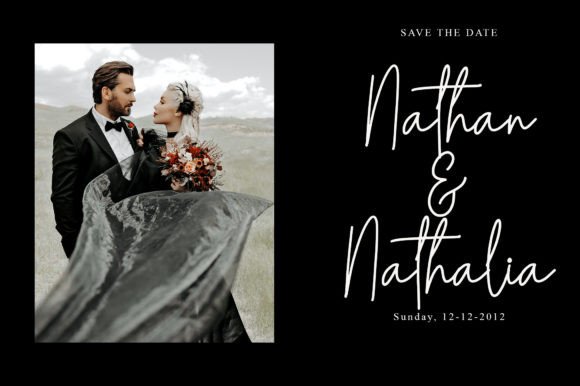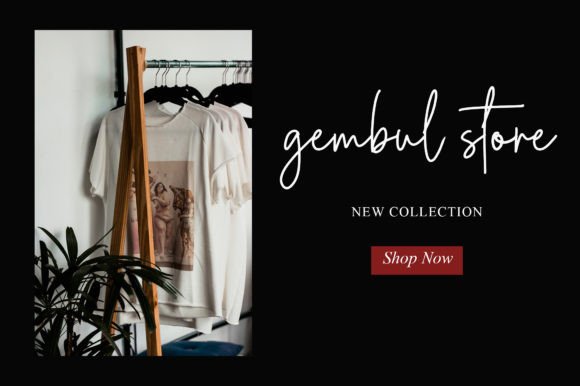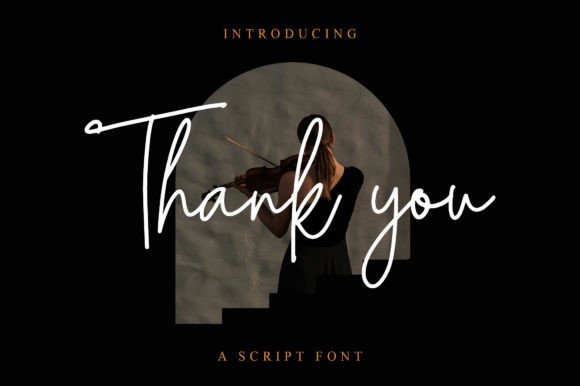
The Boho Chic of Typography: Bringing Your Designs to Life
Remember that moment when a design idea suddenly pops into your head, and you can’t wait to bring it to life? It’s like a spark of creativity has ignited within you, and you’re eager to see your vision take shape. For designers like us, this feeling is a regular occurrence, and it’s what drives us to create something truly special.
That’s where the Boho Font comes in – a fun and friendly handwritten font that’s perfect for turning any design idea into a true standout. Its unique charm and playful vibe make it an instant favorite among designers, and for good reason. With the Boho Font, you can add a touch of personality to your designs and make them truly unforgettable.
Whether you’re a seasoned designer or just starting out, the Boho Font is a valuable addition to your toolkit. Its versatility and charm make it perfect for a wide range of projects, from social media graphics to wedding invitations and beyond. So why not give it a try and see how the Boho Font can help you bring your designs to life?
Key Features of Boho Font
- Unique Characteristics: Boho Font features a distinctive, hand-drawn design with a bohemian flair, characterized by flowing curves, organic shapes, and a touch of whimsy, making it perfect for creative and artistic projects.
- Font Styles: Boho Font comes in multiple font styles, including Regular, Bold, Italic, and Bold Italic, offering users a range of options to suit their design needs.
Boho Font Review
Overall, I think the Boho Font is a charming addition to any design project, particularly those with a bohemian or vintage vibe. ✨
- The font’s unique and eclectic feel adds a touch of whimsy and personality to any design. ✨
- It’s highly versatile and can be used in a variety of contexts, from headings and titles to body text and quotes. ✨
- The font’s high x-height makes it easy to read, even at smaller font sizes. ✨
- The font may not be suitable for corporate or formal designs, as its bohemian vibe may come across as too casual or unconventional. ⚠️
- The font’s irregular letterforms may be difficult to use for precise or technical content, such as instructions or data tables. ⚠️
Overall, I think the Boho Font is a great choice for designers who want to add a touch of personality and creativity to their projects. While it may not be suitable for every design context, it’s a great option for those looking to create something unique and eye-catching.
Tips for Getting the Most Out of Boho Font
For a more authentic bohemian look, pair Boho Font with earthy colors and natural textures.
Experiment with different font sizes and styles to create visual interest and emphasis.
Use Boho Font in combination with other creative fonts to add depth and personality to your designs.
Boho Font is perfect for:
Artistic and creative portfolios
Travel and adventure-themed designs
Wellness and spirituality-related content